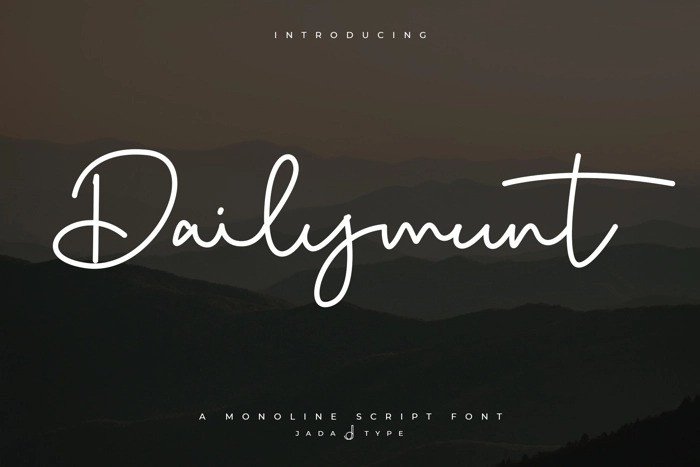
Dailymunt Font
Dailymunt Handwritten Font is an handwritten script font based on the expression of real handwriting. This typeface is a fashionable and delightful script font manufactured by jadatype. It looks radiant on quotes, greeting cards, logos, business cards and every other design which needs a personalized touch.